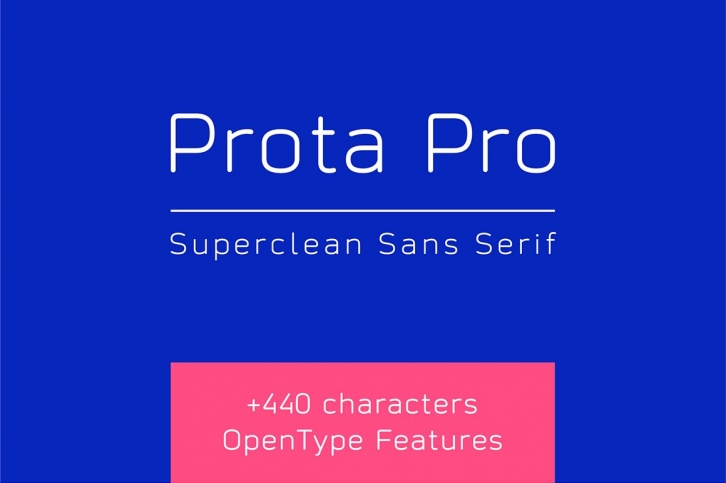
Prota Pro is a new super-clean font. It has an ultra-modern and noble-tech look, inspired by the appearance of top-notch IT brands. The refined design, which celebrates maximum legibility, represents the philosophy of minimalism and functionality sublimed in the credo “Less is moreâ€. It has over 440 characters (supporting over 80 Latin-based languages) and extensive sets of punctuation, symbols and monetary signs (26 currencies), plus arrows set as a bonus. Like any other high quality professional font, Prota Pro is supplied with all standard OpenType features!
Clean open contours, thin uniform strokes, simplified letter shapes, and subtly square-ish curves fit perfectly with the spirit of the digital age, ever-increasing flow of information, new scientific achievements, and brave intelligent solutions devised by new startup companies. It is designed to be a multi-purpose typeface looking good both on screen and in print, in text and in a headline. Special attention was given to the goal of making Prota Pro looks good on the screen at smaller font size. This is achieved by manually adjusted PostScript hints in font production software.
Do you need a font which will present your business as a professional, modern and reliable leader in the industry? Prota Pro is designed with this purpose in mind. It is perfect for business cards, brochures, logos, banners, cover images, and many more! Each character is carefully crafted with maximum precision.
Its development is directly based on many reviews from the world class type design professionals and the customers who purchased it's predecessors (Prota Basic and Prota Standard) and wanted to help me improving and upgrading the concept even further. It took me months of dedicated work, going back and forth until I was satisfied with every single character. I would be glad to see that work makes your business looks fine.
Over 440 characters, +80 Latin-based languages support, extensive sets of punctuation, symbols and monetary signs (26 currencies), and arrows set as a bonus.
Standard OpenType features
Highly legible, multi-purpose font which looks good in print and on screen, at small or large font size.
Sleek, minimal, noble-tech type design inspired by the top-notch IT brands, will instantly bring a serious professional feeling to your projects.
Superclean refined design of Prota Pro, makes it perfect for a wide range of projects, including logos, brochures, packaging, banners, business cards and many more...
Carefully crafted letterforms, with maximum precision.
Great feedback and reviews from world class type design professionals.